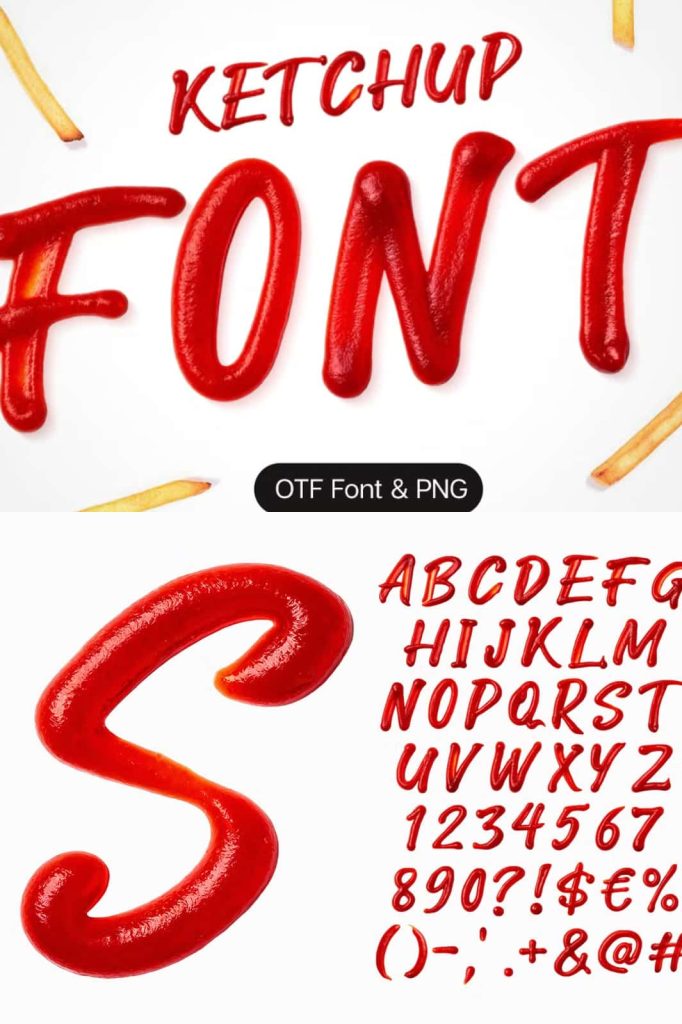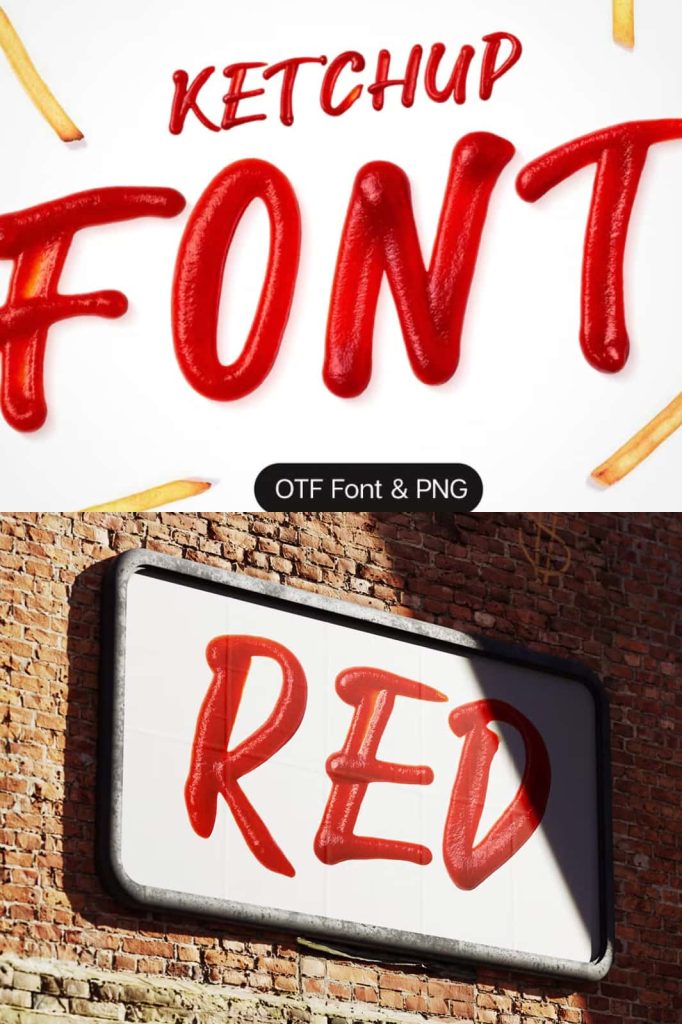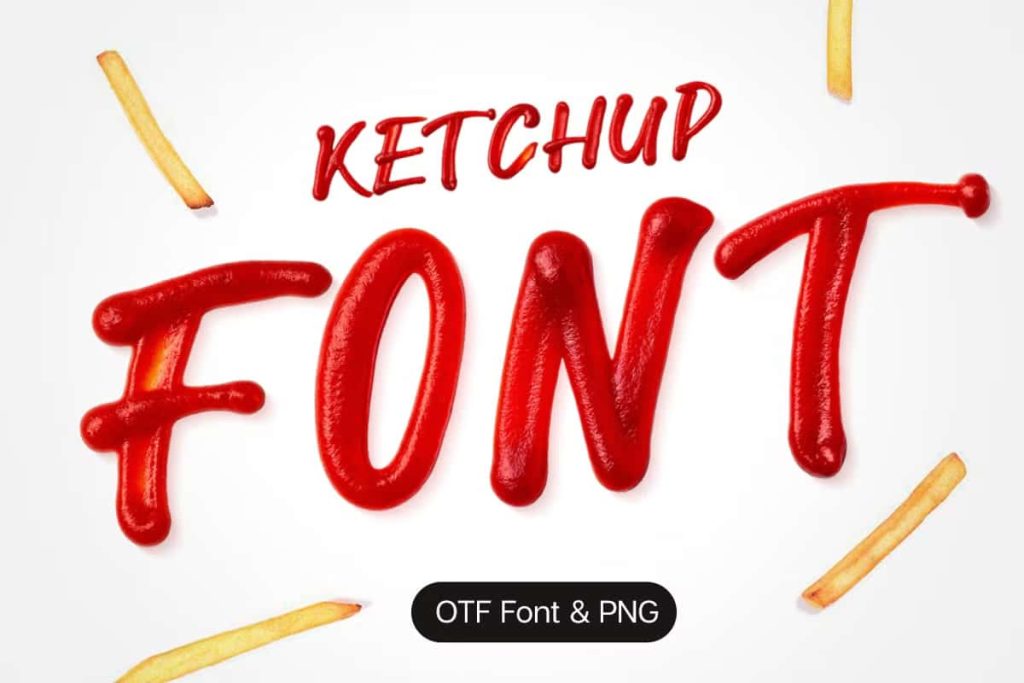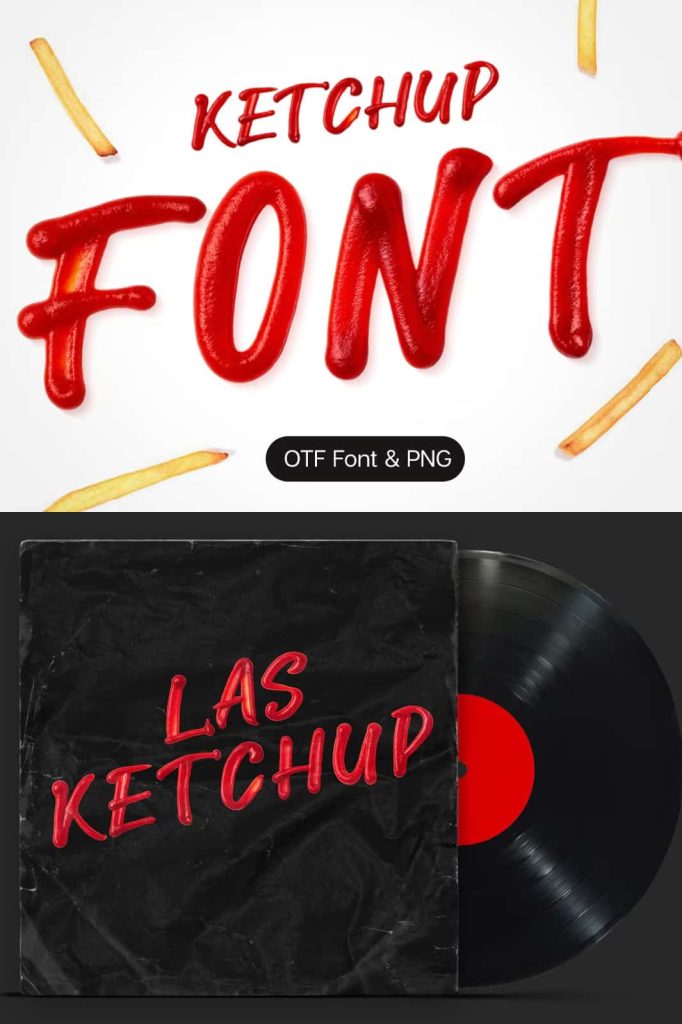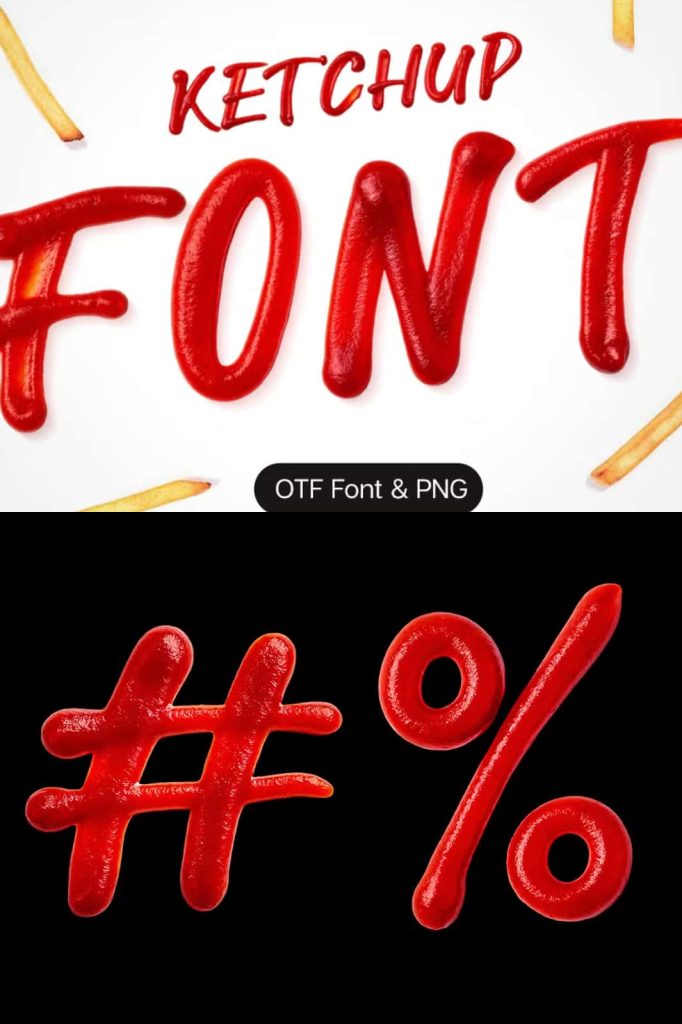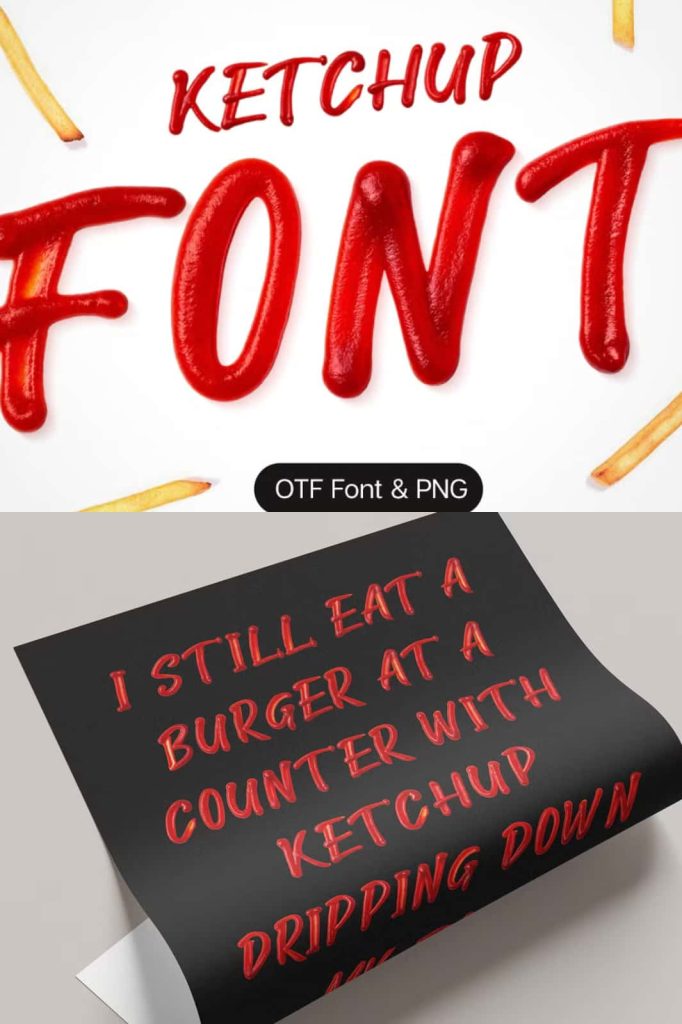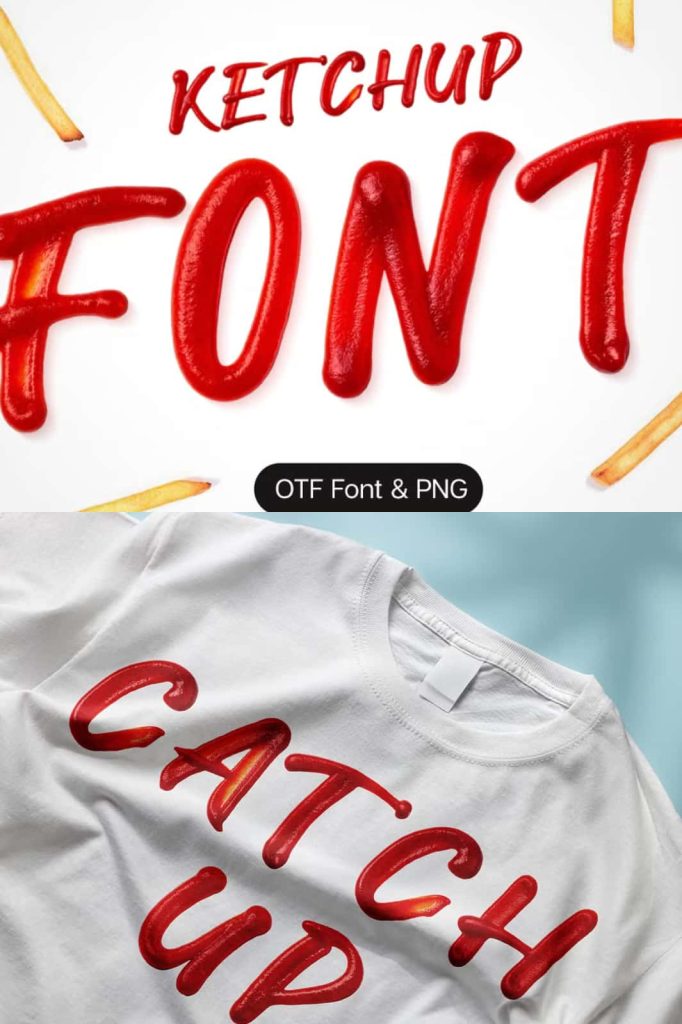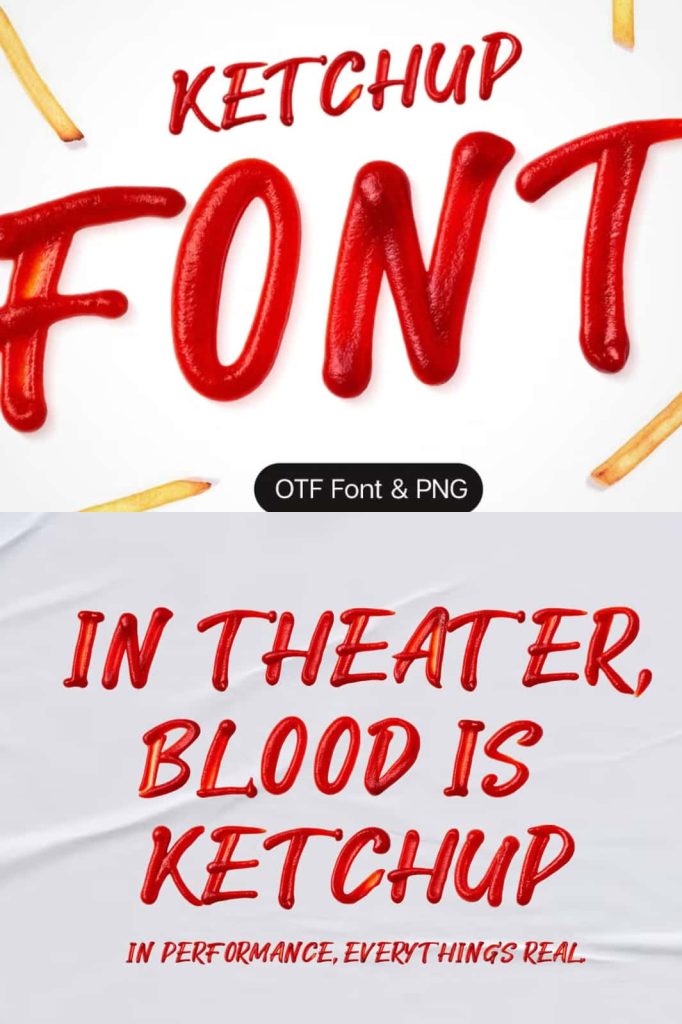
Ketchup Font is a playful typeface that mimics the look of thick, drippy ketchup. Every letter appears as if squeezed from a bottle, creating a fun, saucy texture perfect for food-related designs or quirky layouts. Ideal for apps that support color bitmap fonts!